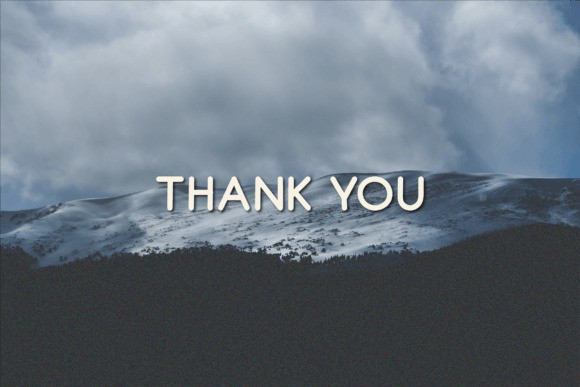
Betrothed Sans Serif Font is a quirky and playful all-caps sans serif font. Whether you’re using it for crafts, digital design, presentations, or making greeting cards, this font has the potential to become your favorite go-to font, no matter the occasion.
Designer Name: | Goliatte |
Classification: | Display Fonts, Sans Serif Fonts |
Betrothed